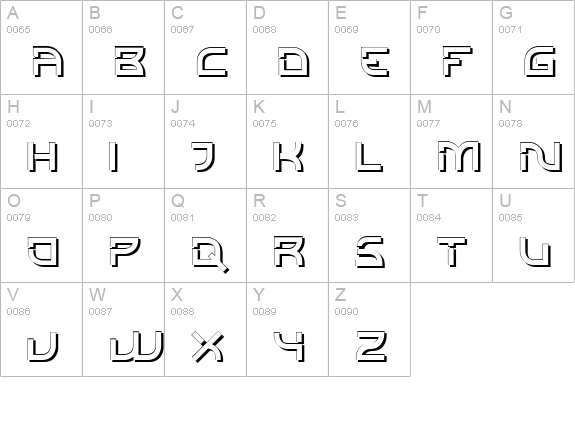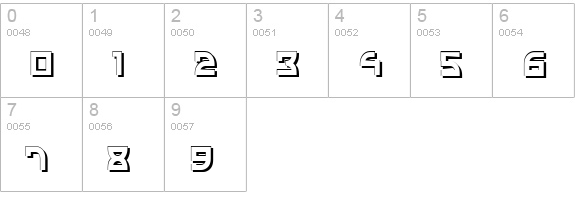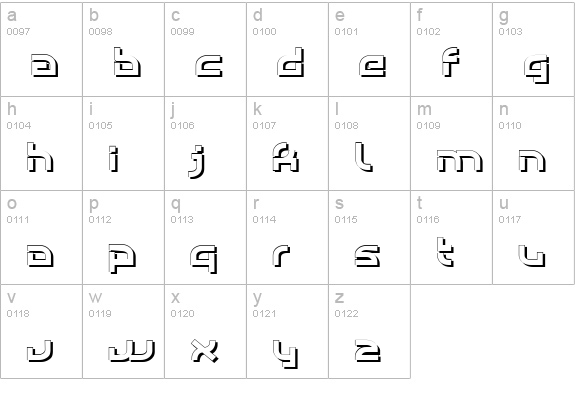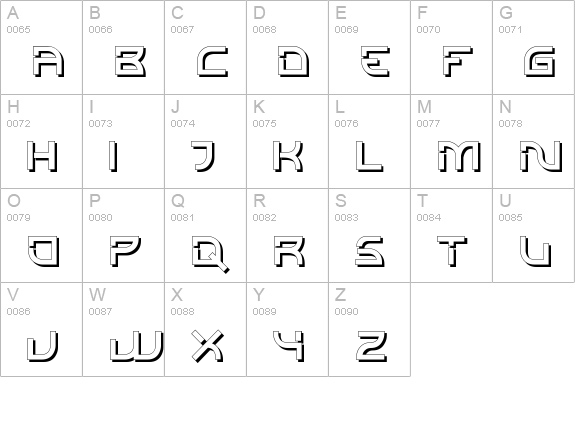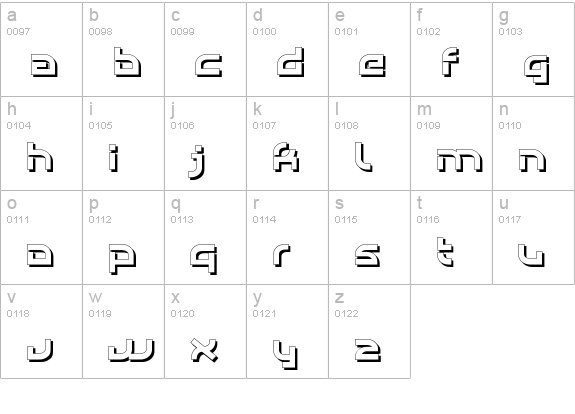
Individigital Shaded font is a stunning display typeface that exudes modernity and sophistication. With its sleek and elegant letterforms, this font seamlessly captures attention and adds a touch of contemporary flair to any design project. The unique shading effect applied to each character gives Individigital Shaded font a three-dimensional appearance, creating depth and dimension that make it truly stand out. Whether used for headlines, logos, or advertisements, this font brings a sense of depth and professionalism to any design. What sets Individigital Shaded font apart is its versatility. It can be used for both digital and print applications, making it perfect for websites, social media graphics, posters, brochures, and much more. Its clarity and legibility ensure that your message is conveyed clearly and effectively. One of the best things about Individigital Shaded font is that it is freely available to download at FontsMarket.com. This means that you can easily access this exceptional font and use it to elevate your designs without any cost. It's a fantastic opportunity to add a touch of sophistication to your projects without breaking the bank. So, if you're looking for a modern and eye-catching font that will make your designs shine, look no further than Individigital Shaded font. With its sleek letterforms, three-dimensional shading, and free availability, this font is a must-have for any designer looking to make a bold statement. Download it now at FontsMarket.com and let your creativity soar.